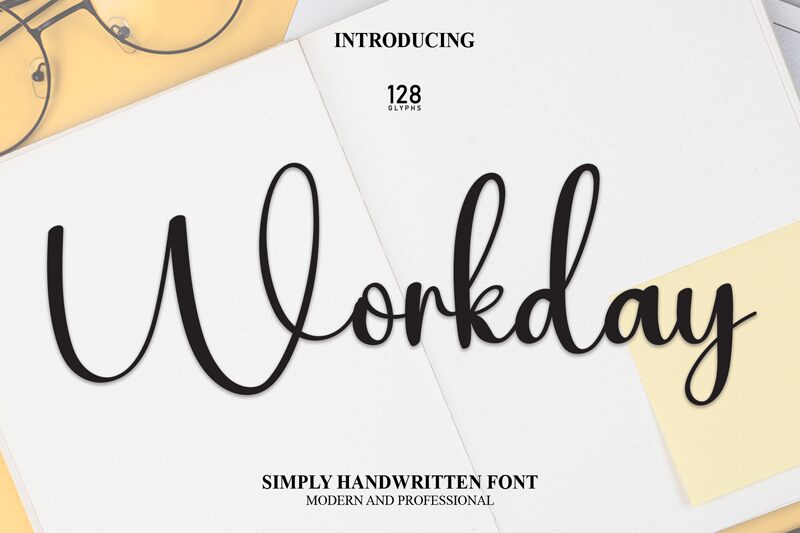
Workday
Workday, a breathtakingly crafted font by Scratchones, brings an exquisite touch to your projects with its beautiful handwritten style.
This semi-light typeface adds a touch of elegance and sophistication, making it perfect for wedding invitations, greeting cards, and personal branding materials. Its delicate strokes and flowing curves captivate the eye, enhancing any design with a sense of grace and charm. With Workday, let your creativity shine through in various applications such as product packaging, fashion magazines, or even food blogs.
Elevate your designs with this enchanting font that exudes creativity and finesse.